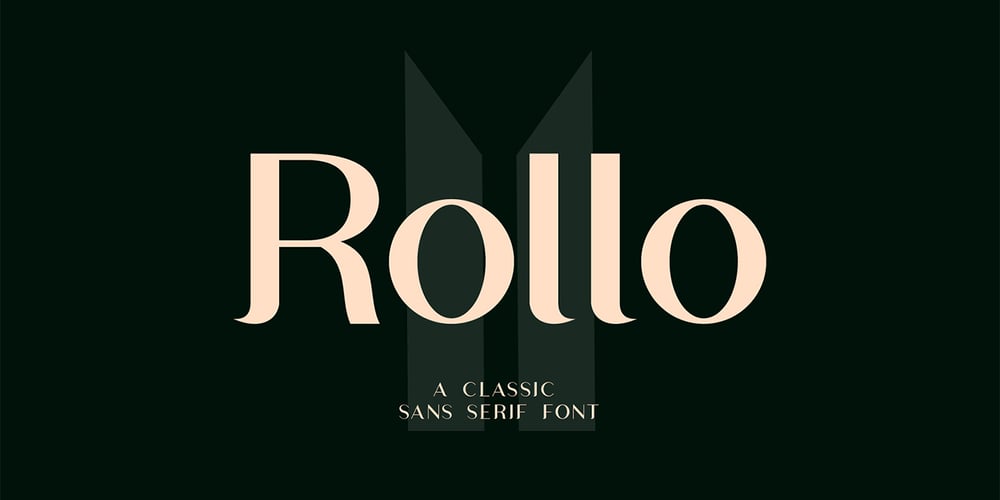
Rollo
Rollo font
Rollo Font Family was designed by Gilang Maulana and published by Maulana Creative. Rollo contains 1 styles and family package options. Introducing Rollo Classic Sans Serif Font is a handmade Modern Victorian handlettering, which is combining modern and classic typography with some awesome alternates. Yes we back to early 1800s, bring classic touch on this decade.